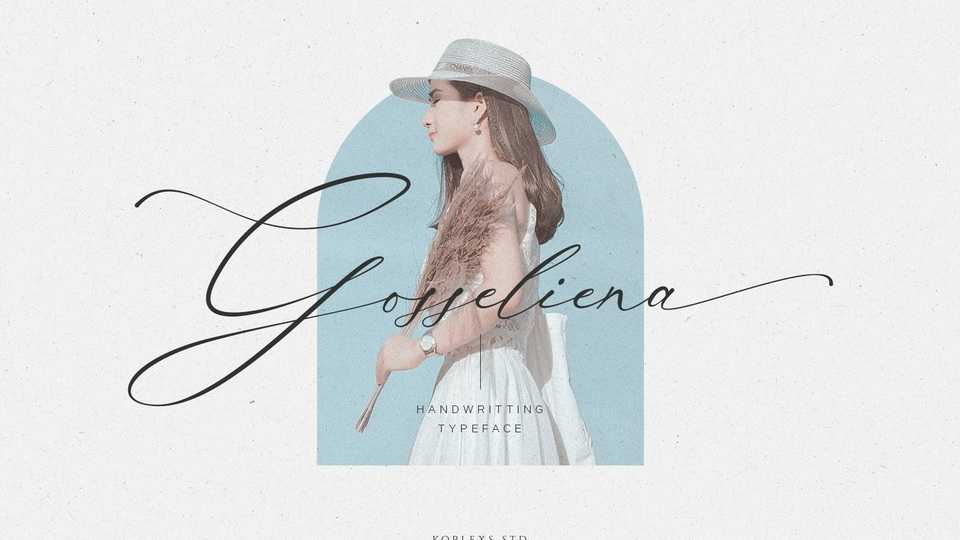
Gosseliena Handwritten Signature Font › Fontesk – Download Grátis
Download Gosseliena font, an elegant handwritten signature typeface with a calligraphy flair. Gosseliena is ideal for creating handwritten-style logos, wedding stationery, photographer watermarks logos, modern websites, and more.
Designer: Koplexs Studio